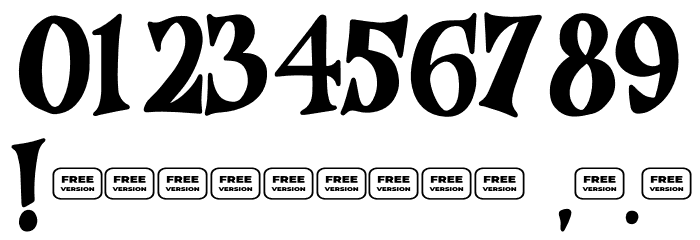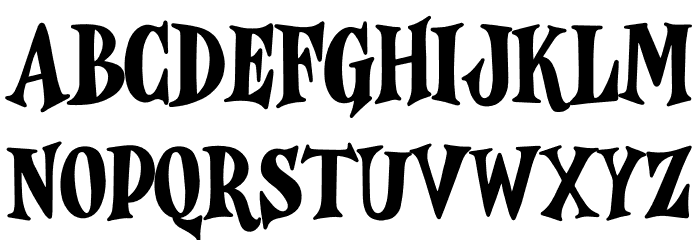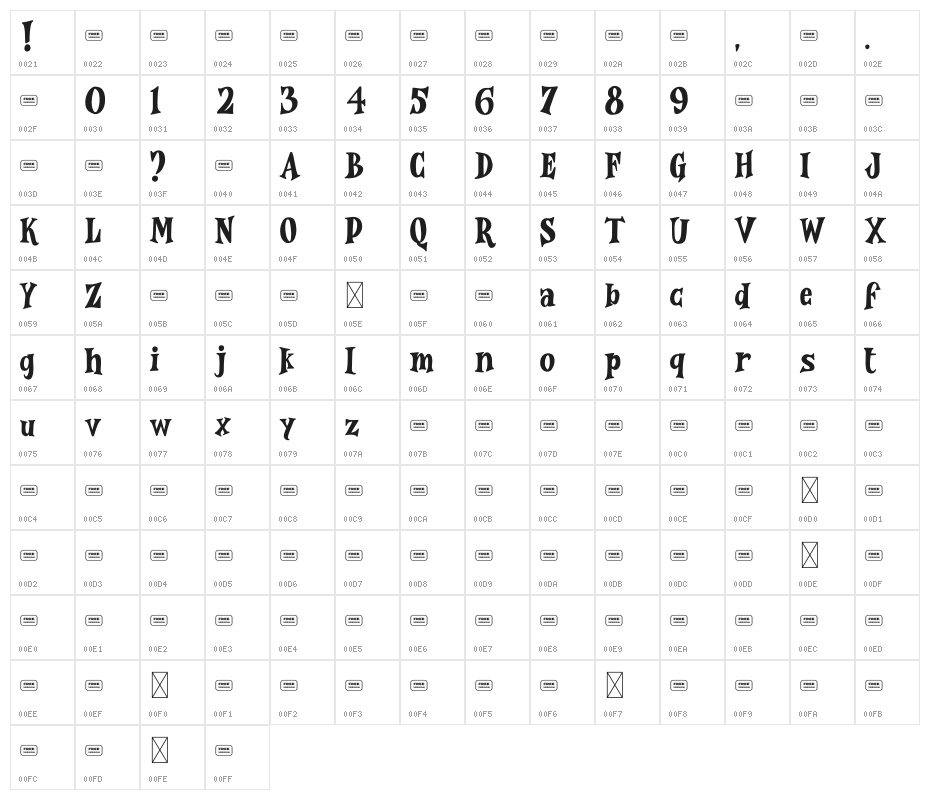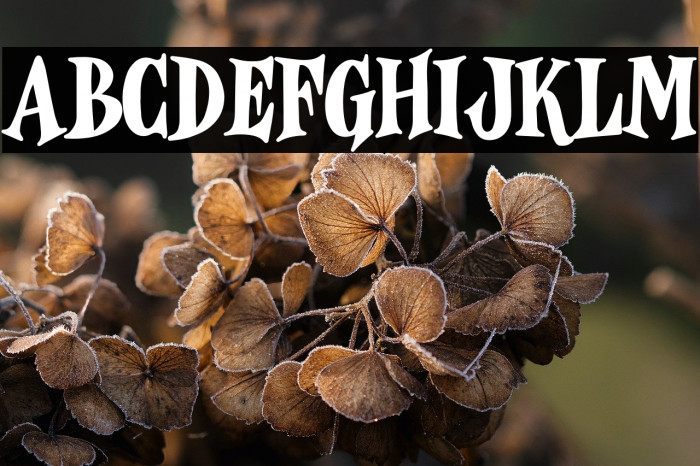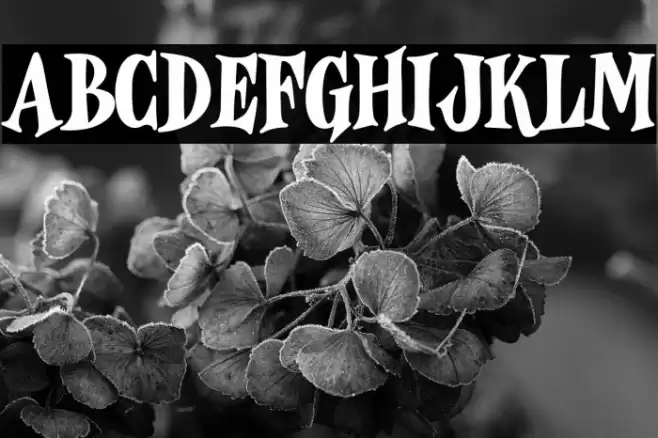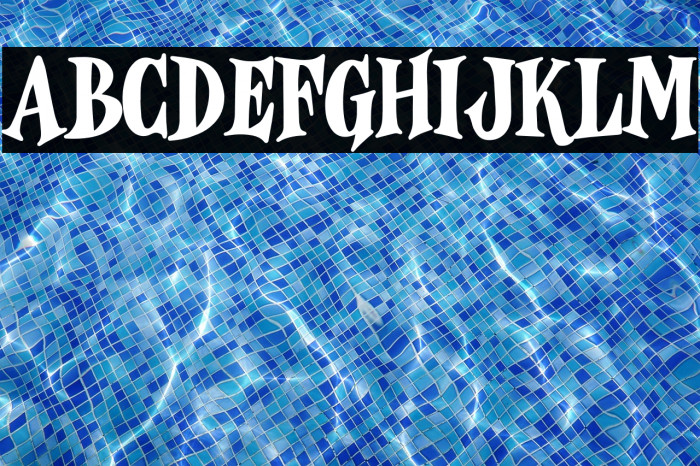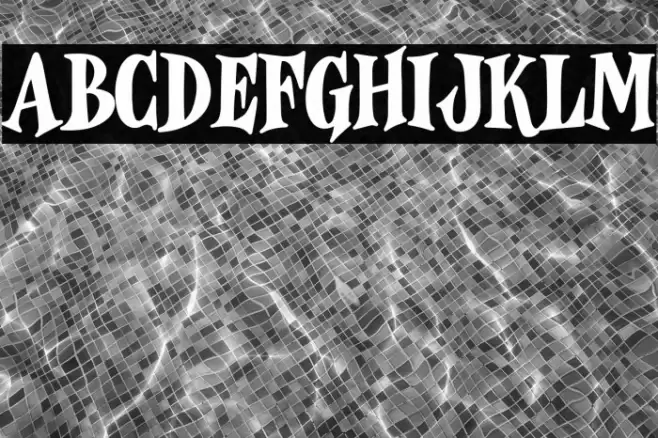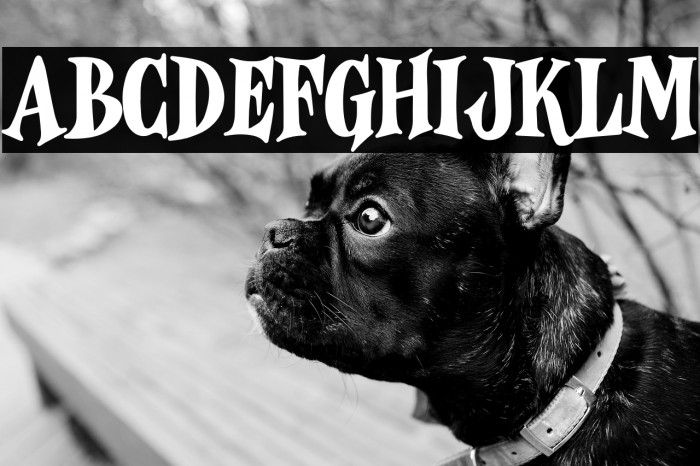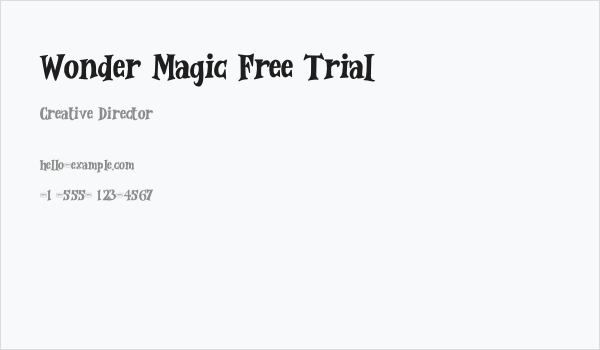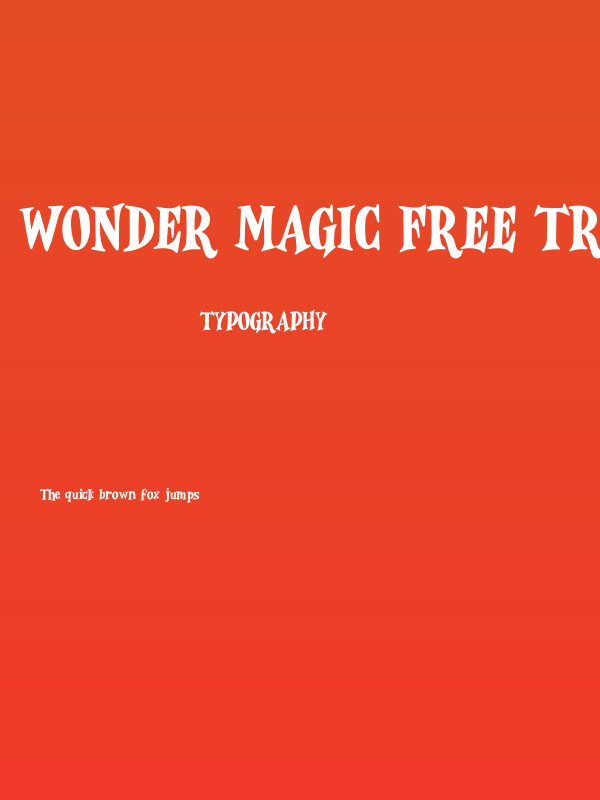
Wonder Magic Free Trial Font
Wonder Magic Free Trial Description
This font features a whimsical and playful design, characterized by its exaggerated curves and uneven strokes. The letters have a hand-drawn appearance, giving them a unique and artistic flair. The uppercase letters are bold and dynamic, while the lowercase letters maintain a consistent style with slightly more subtle curves. The numbers and special characters follow the same playful theme, making the font suitable for creative and informal applications. The overall design is eye-catching and distinctive, perfect for projects that require a touch of magic and wonder.
| Proposed Projects | Ideal for children's books, fantasy-themed posters, playful branding, and creative invitations. |